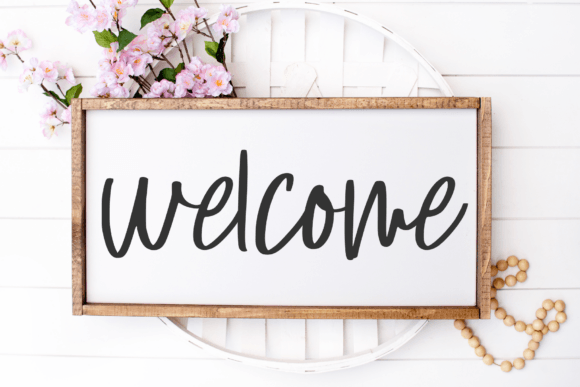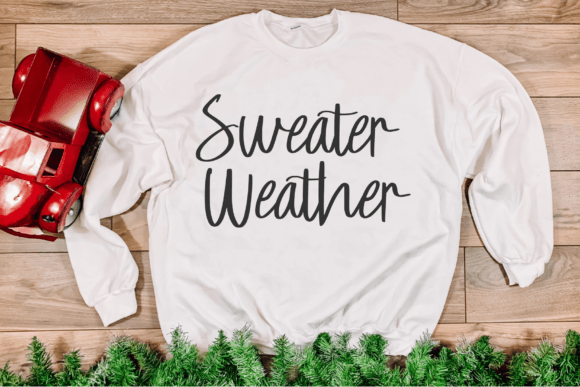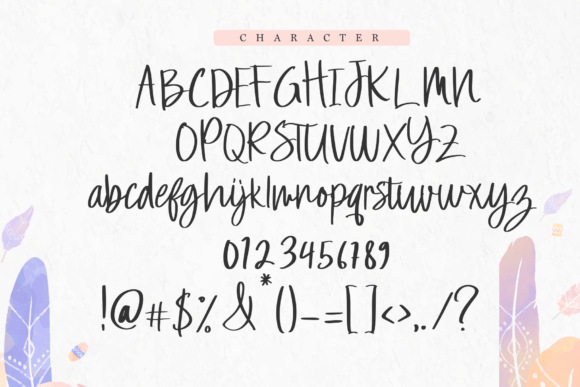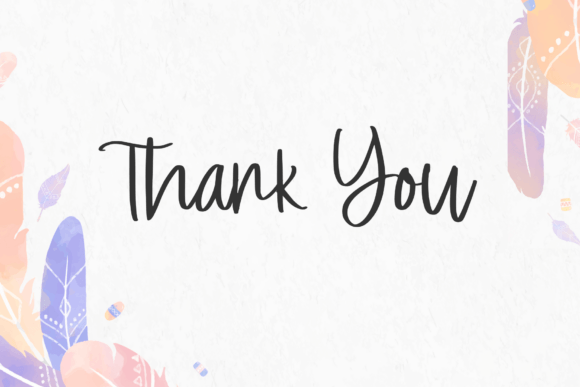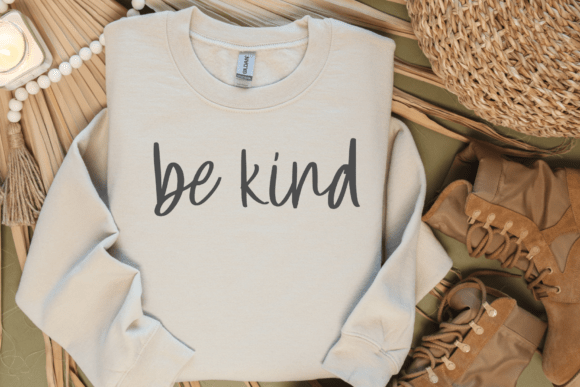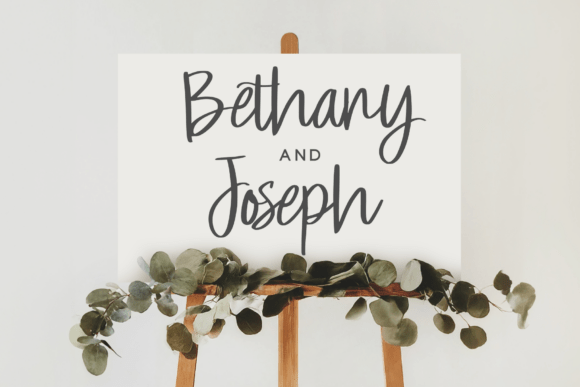
Baby Boho Font: Elevate Your Designs with Elegant Handwritten Charm
In the world of design, fonts play a crucial role in conveying the tone and aesthetic of a project. For those seeking a touch of elegance and sophistication, the Baby Boho font is an exceptional choice. This stunning handwritten script font seamlessly blends modern calligraphy with a bohemian vibe, making it perfect for a variety of design ventures.
The Essence of Baby Boho Font
Baby Boho is a beautiful, elegant cursive script font that brings a touch of grace and sophistication to any design. Its unique, flowing style is reminiscent of modern calligraphy, making it an excellent choice for designers looking to add a personal touch to their work. With its charming aesthetic and bohemian vibe, Baby Boho is ideal for a range of projects, from wedding invitations and bridal stationery to Cricut crafts and more.
Key Features of Baby Boho Font
- Elegant Cursive Style: Baby Boho boasts a stunning, flowing script style that adds a touch of sophistication to any design.
- Bohemian Vibe: This font effortlessly captures the essence of bohemian chic, making it perfect for designers seeking a unique and eclectic aesthetic.
- Handwritten Charm: With its handwritten origins, Baby Boho brings a personal touch to every design, making it ideal for projects that require a touch of warmth and personality.
- Modern Calligraphy: This font seamlessly blends traditional calligraphy with modern design sensibilities, resulting in a truly unique and captivating aesthetic.
Ideal Uses for Baby Boho Font
Baby Boho is an incredibly versatile font, suitable for a wide range of design projects. Some of the most popular uses for this font include:
- Wedding Invitations: Add a touch of elegance and sophistication to your wedding invitations with Baby Boho’s beautiful, flowing script.
- Bridal Stationery: From save-the-dates to thank-you cards, Baby Boho is the perfect choice for creating stunning bridal stationery.
- Cricut Projects: This font is ideal for Cricut crafts, such as paper crafts, iron-on designs, and more.
- Digital Designs: Use Baby Boho to create captivating digital designs, including social media graphics, blog headers, and more.
Why Choose Baby Boho Font?
With so many fonts available, why choose Baby Boho? Here are just a few reasons why this font stands out:
- Unique Aesthetic: Baby Boho’s blend of modern calligraphy and bohemian charm makes it a truly unique and captivating font.
- Elegant and Sophisticated: This font brings a touch of elegance and sophistication to any design, making it perfect for high-end projects.
- Versatile: Baby Boho is suitable for a wide range of design projects, from wedding invitations to digital designs.
In conclusion, the Baby Boho font is a stunning, elegant cursive script font that brings a touch of sophistication and bohemian charm to any design. With its unique aesthetic, versatility, and ease of use, this font is an excellent addition to every designer’s toolkit. Whether you’re creating wedding invitations, bridal stationery, or Cricut crafts, Baby Boho is the perfect choice for designers seeking to elevate their designs with a touch of elegance and whimsy.